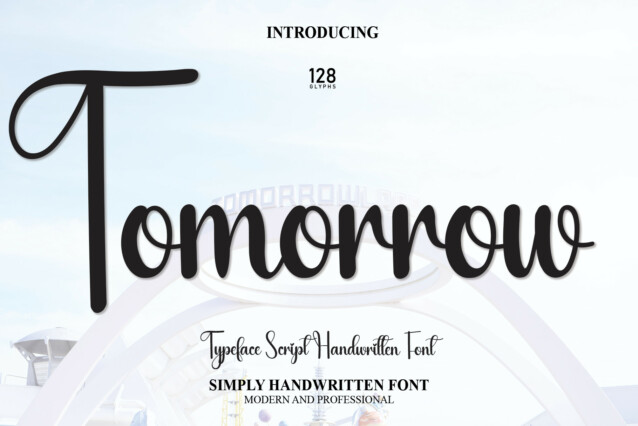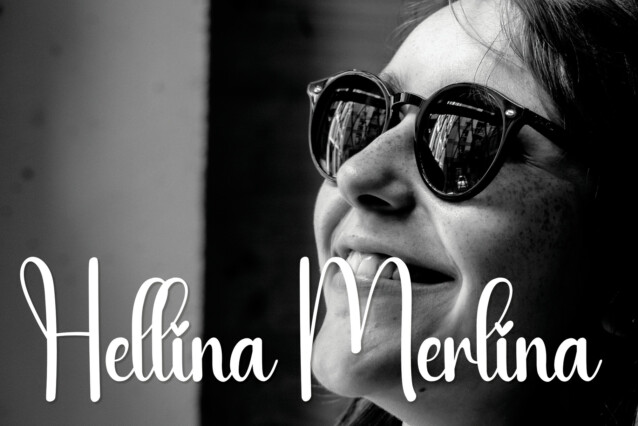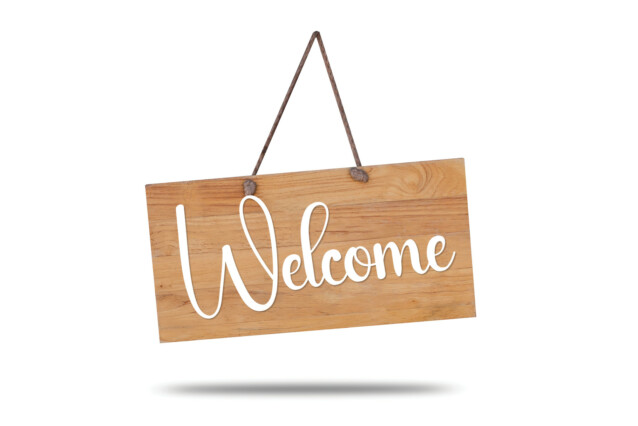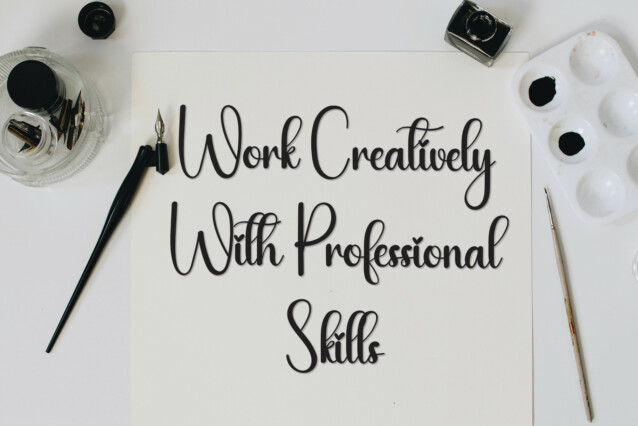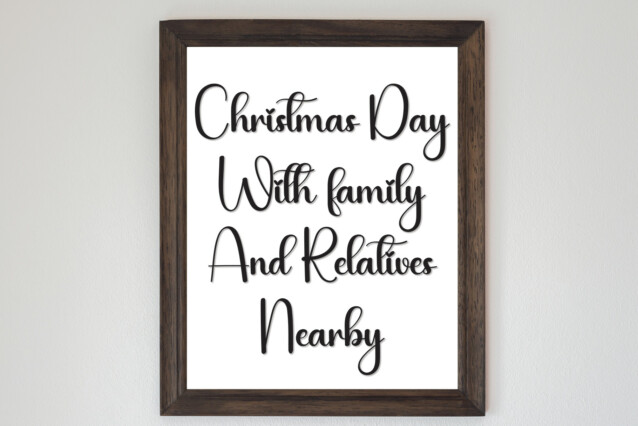
Tomorrow Script Font
Tomorrow Script Font is a flowing handwritten font, described by an elegant touch, perfect for your favorite projects. Fall in love with its incredibly distinct and timeless style and use it to create spectacular designs!